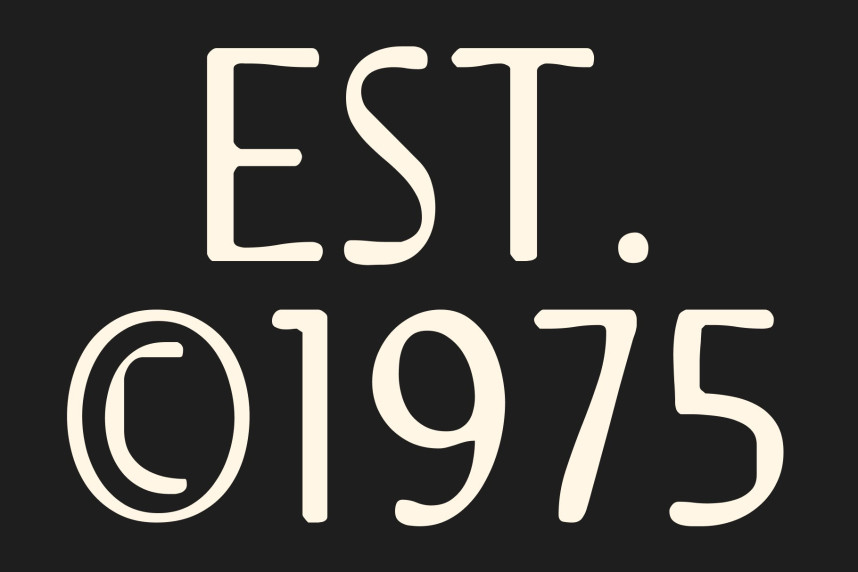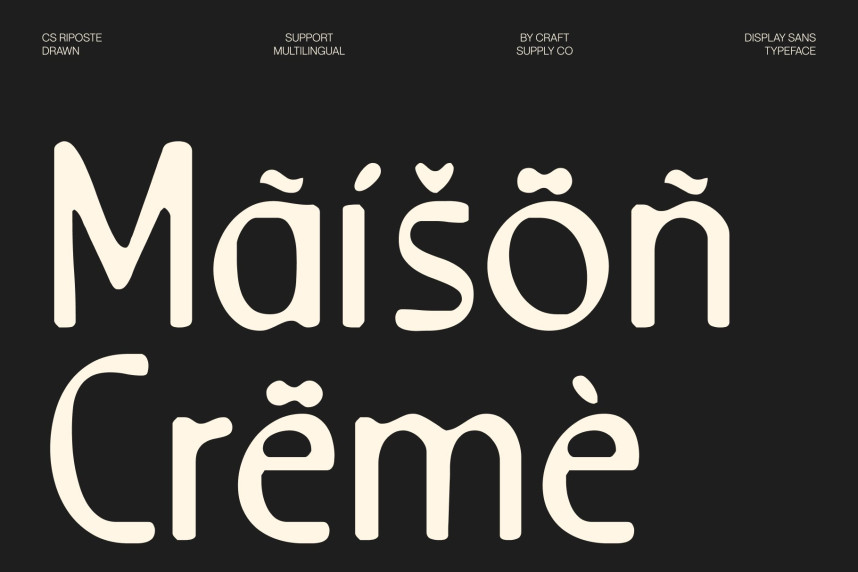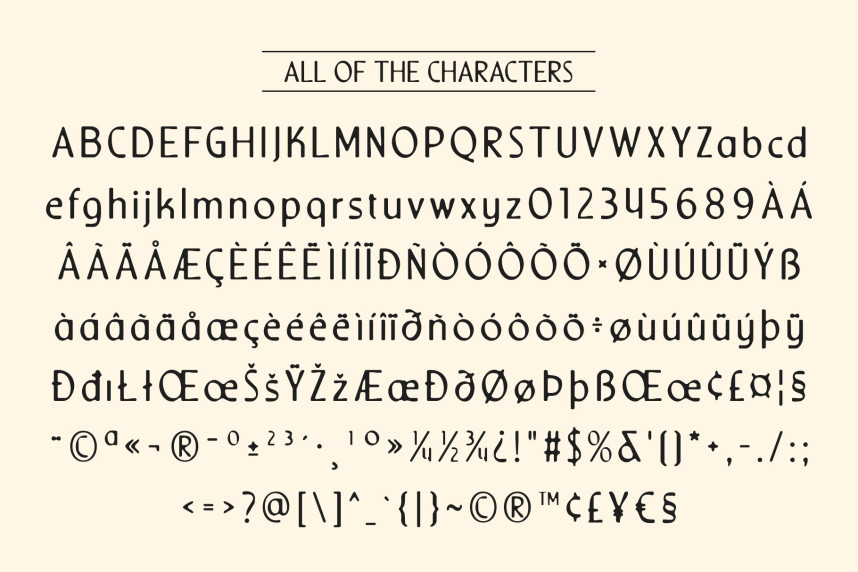
CS Riposte Drawn Font
CS Riposte Drawn Font – Fresh Modern Clarity with Stylish Confidence Modern Sans Serif with Clean Structure and Hand-Drawn Detail. This is a modern sans serif font crafted with a clean and fresh design approach, enhanced by a subtle hand-drawn texture. Its well-balanced structure and refined proportions create a polished, professional presence without feeling stiff or overly formal. The drawn finish introduces warmth and individuality, giving the typeface a contemporary yet approachable character.